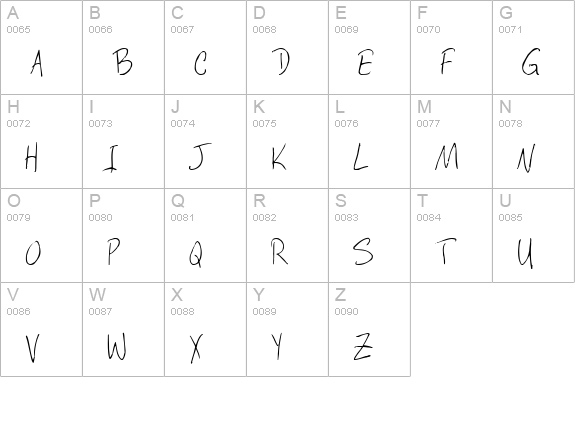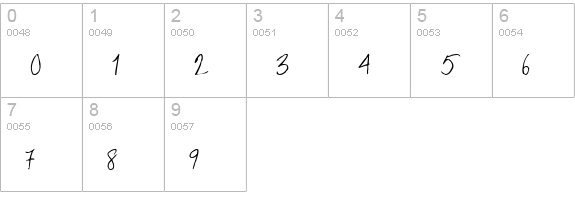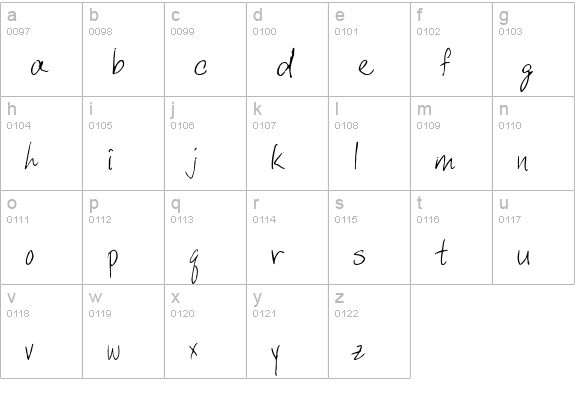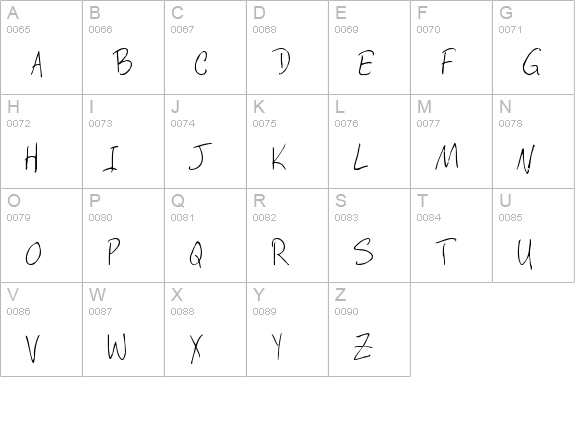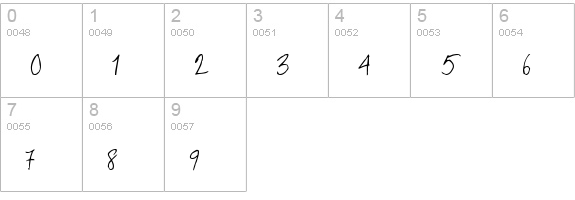
CrappyWriting Font Details
Introducing CrappyWriting font, a whimsically quirky and charming typeface that adds a touch of playfulness to any design project. This unique font features irregular lines and uneven spacing, giving it a hand-drawn, homemade feel that is perfect for adding a touch of whimsy to your creations. CrappyWriting font is freely available to download at FontsMarket.com, making it a versatile and budget-friendly option for all your design needs. Whether you're working on a fun poster, a creative logo, or a quirky social media graphic, CrappyWriting font is sure to bring a smile to your audience's face. With its charming imperfections and playful personality, CrappyWriting font is the perfect choice for anyone looking to add a touch of whimsy and creativity to their designs. Download it for free today and let your creativity shine with CrappyWriting font!